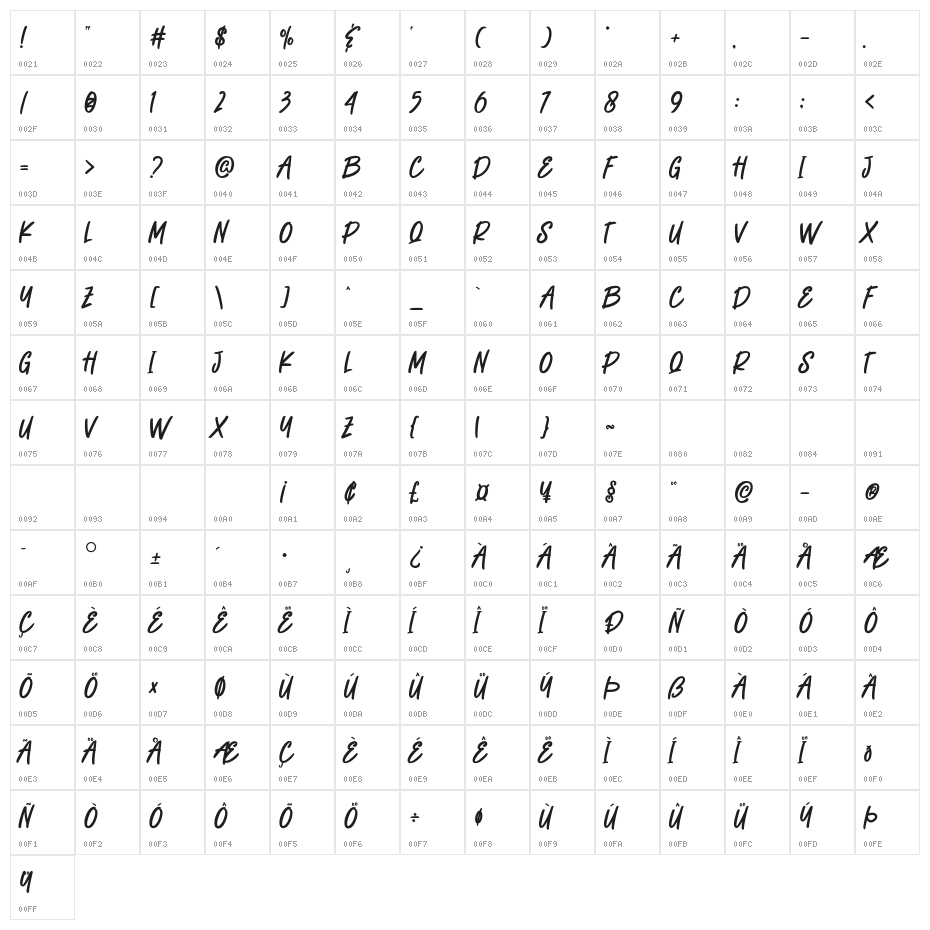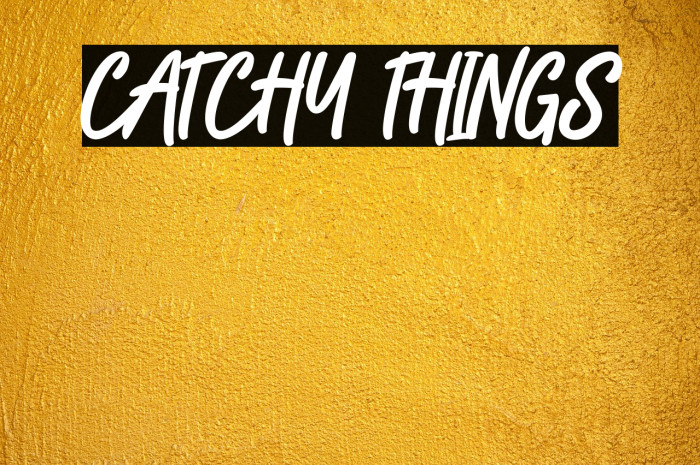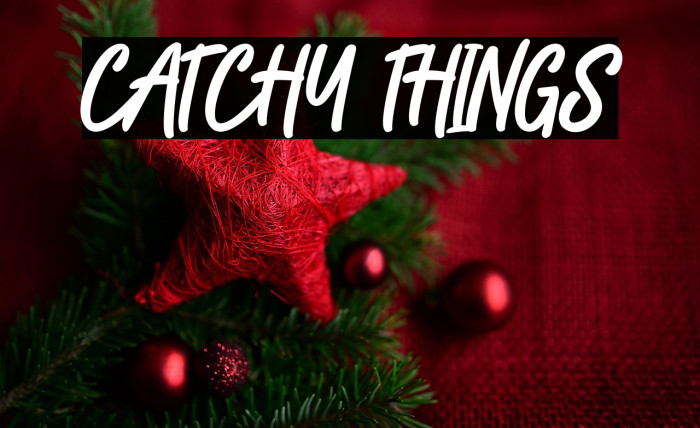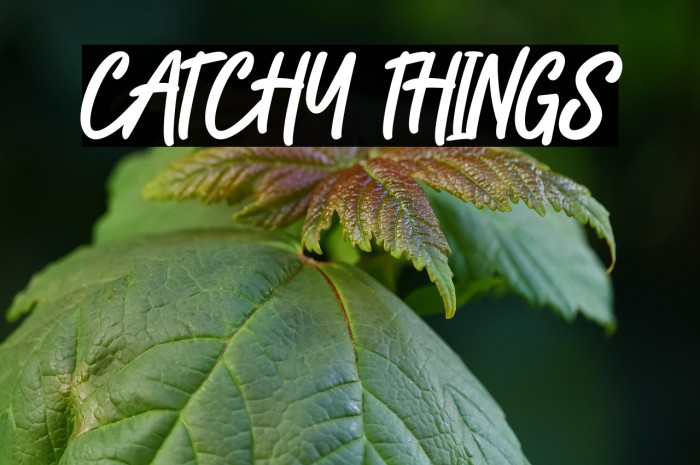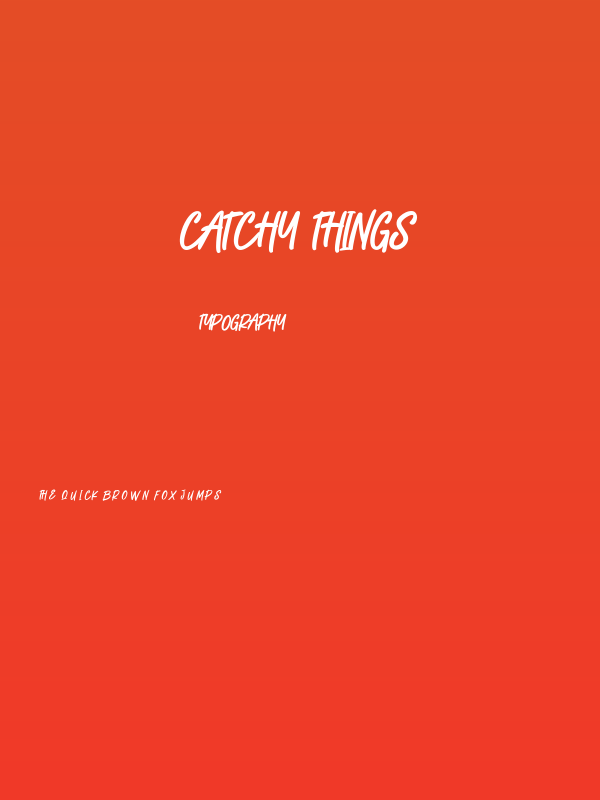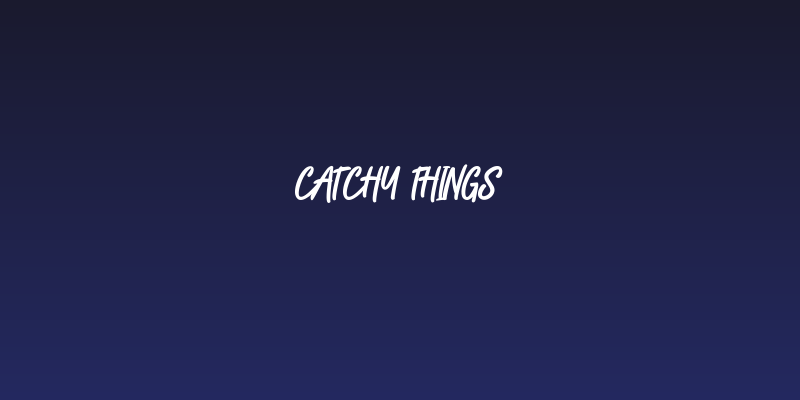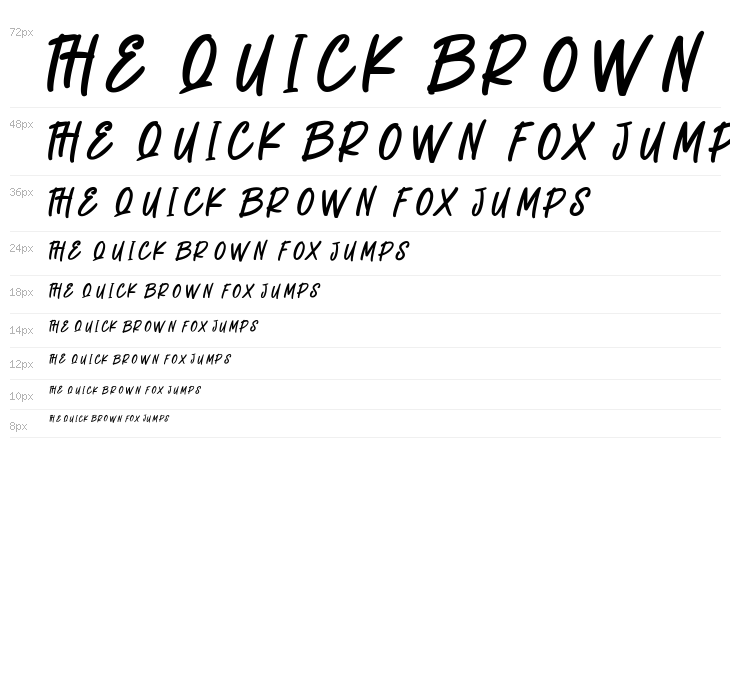
CATCHY THINGS Font
| Anwendungsfall | Logos, Headlines, Posters |
| Vorgeschlagene Projekte | Ideal for branding, logos, posters, and invitations where a personal and energetic touch is desired. |